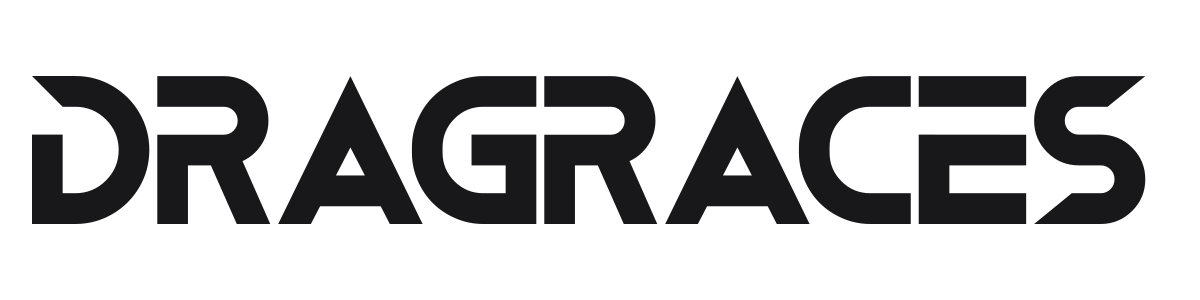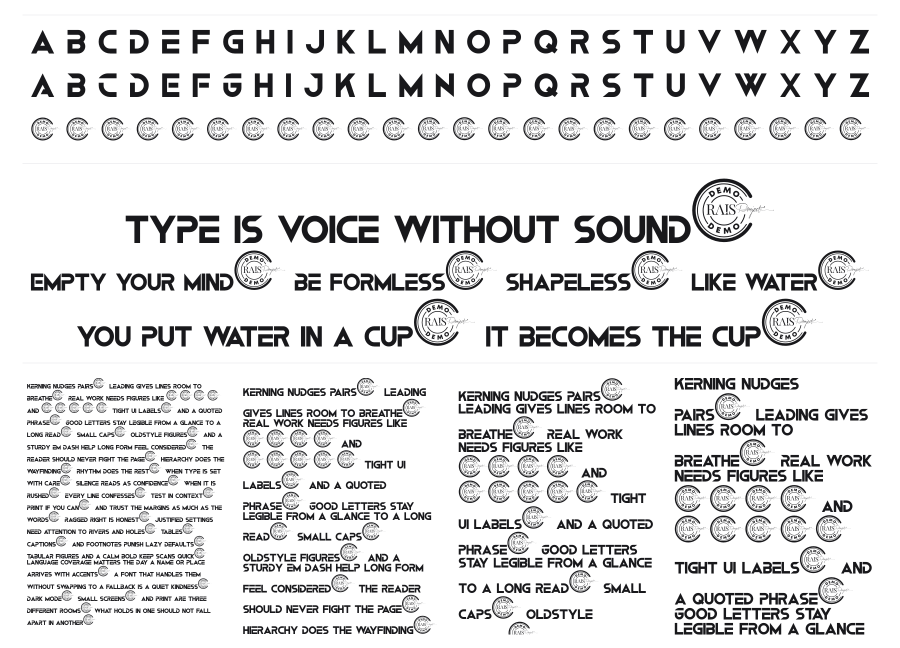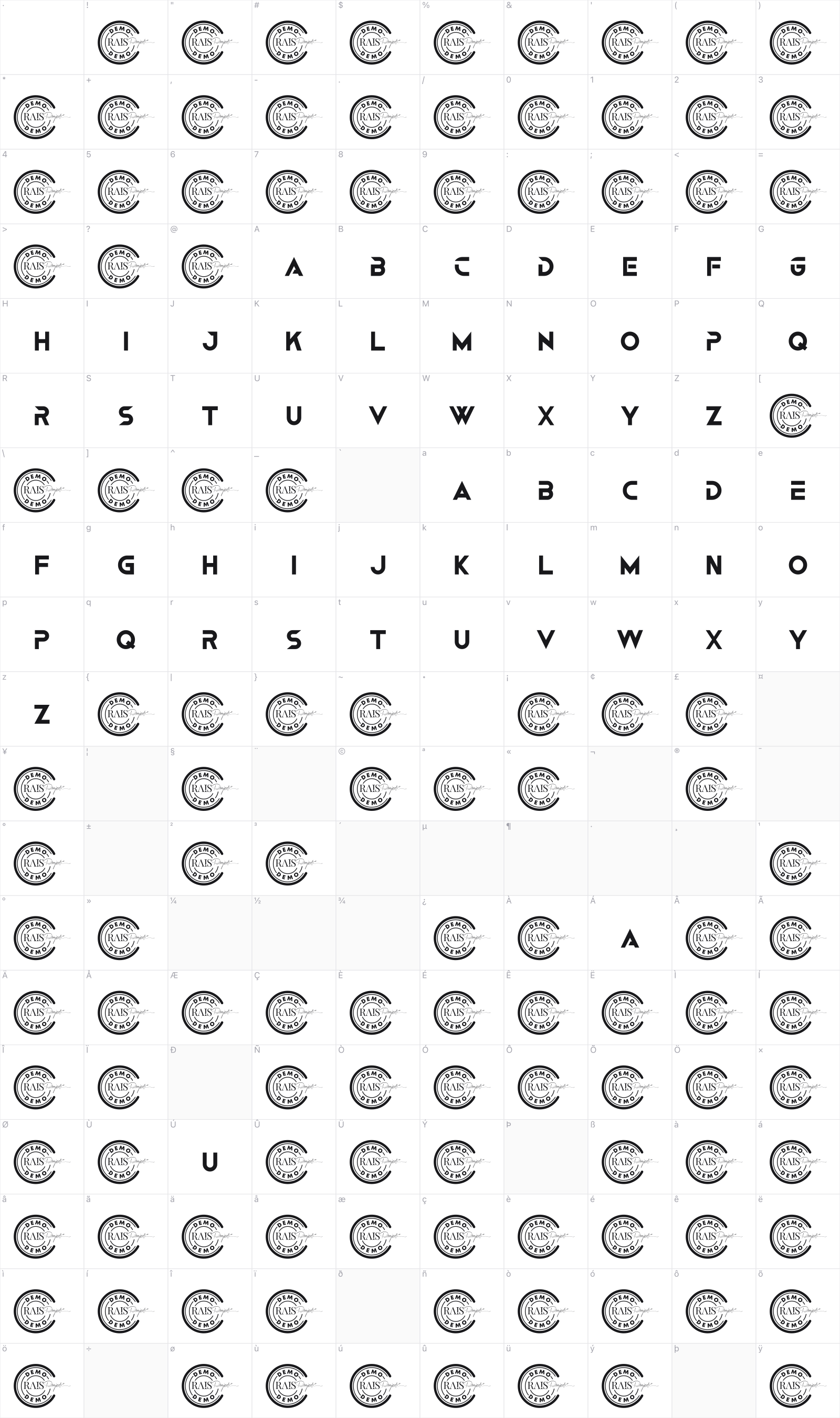
Dragraces
Dragraces is a bold, wide display sans built around sharp angular cutaways and notched stroke intersections that give it a raw, mechanical energy. The design draws clearly from 1970s motorsport and racing typography, with heavy weight and tight spacing that read instantly at large sizes. It works well for sports branding, streetwear, event posters, and anything that needs attitude.